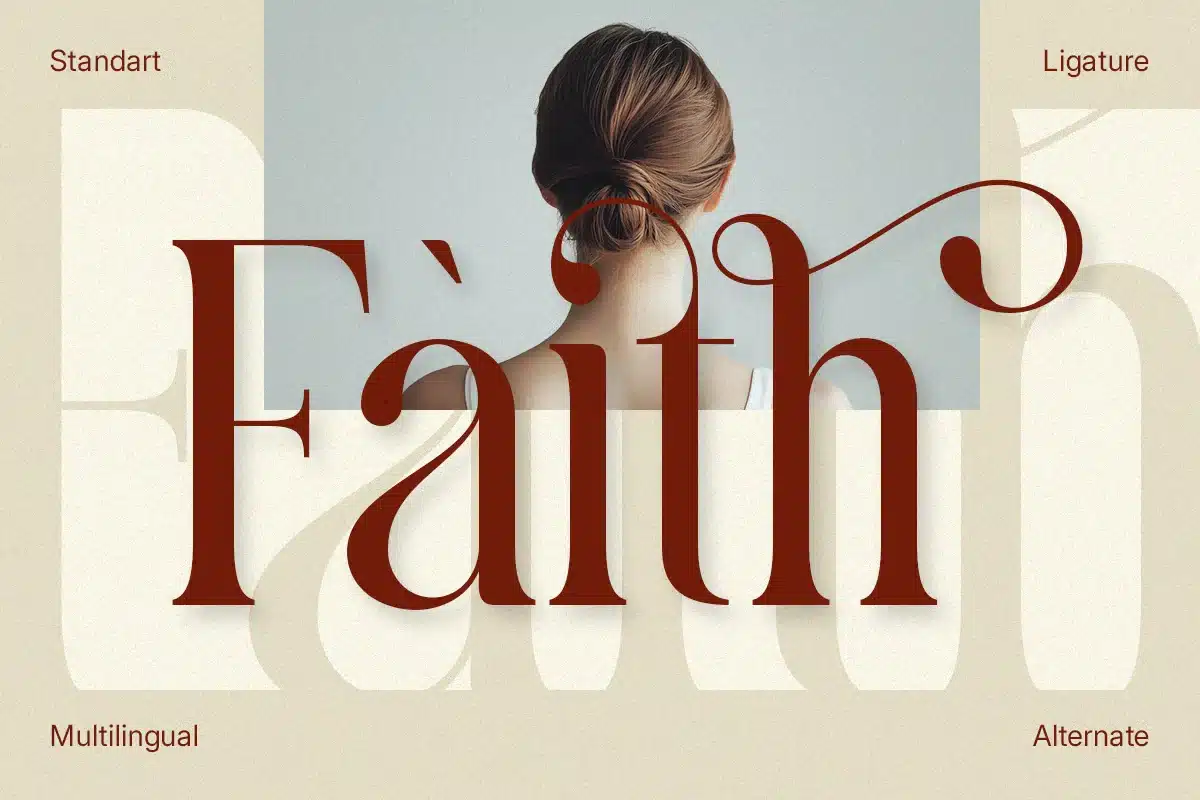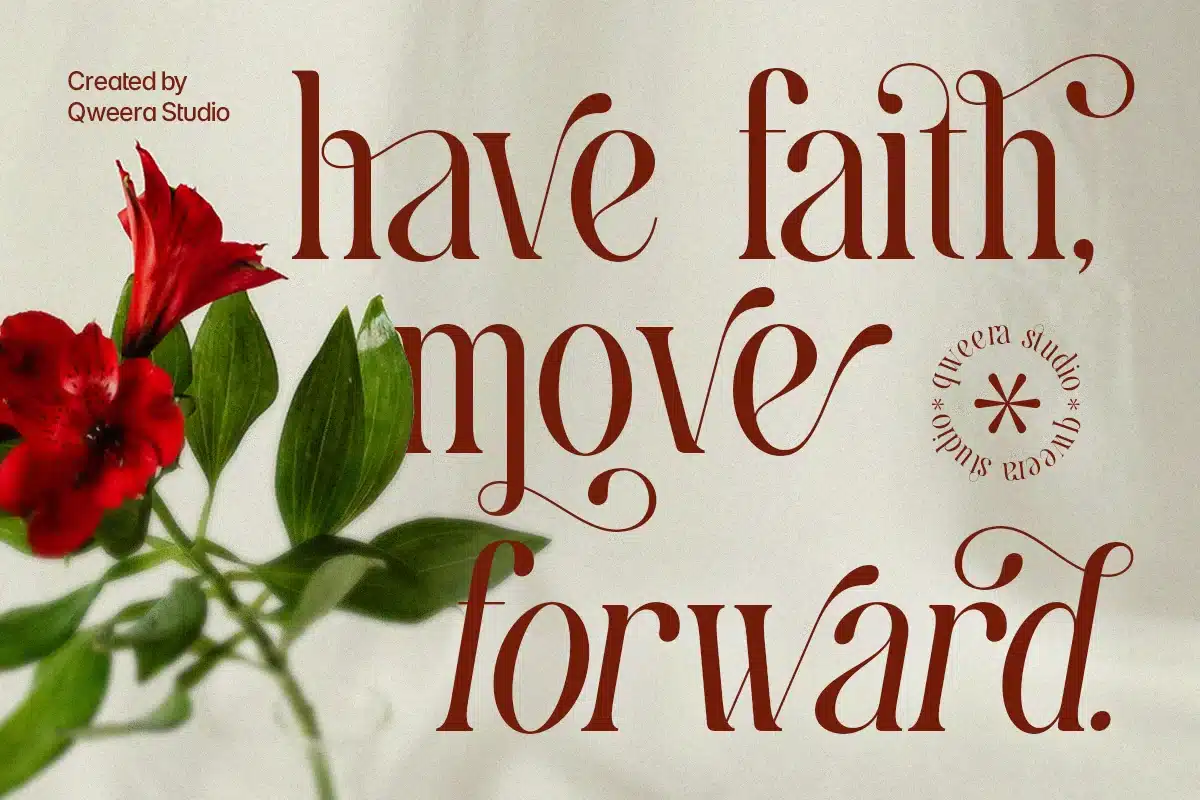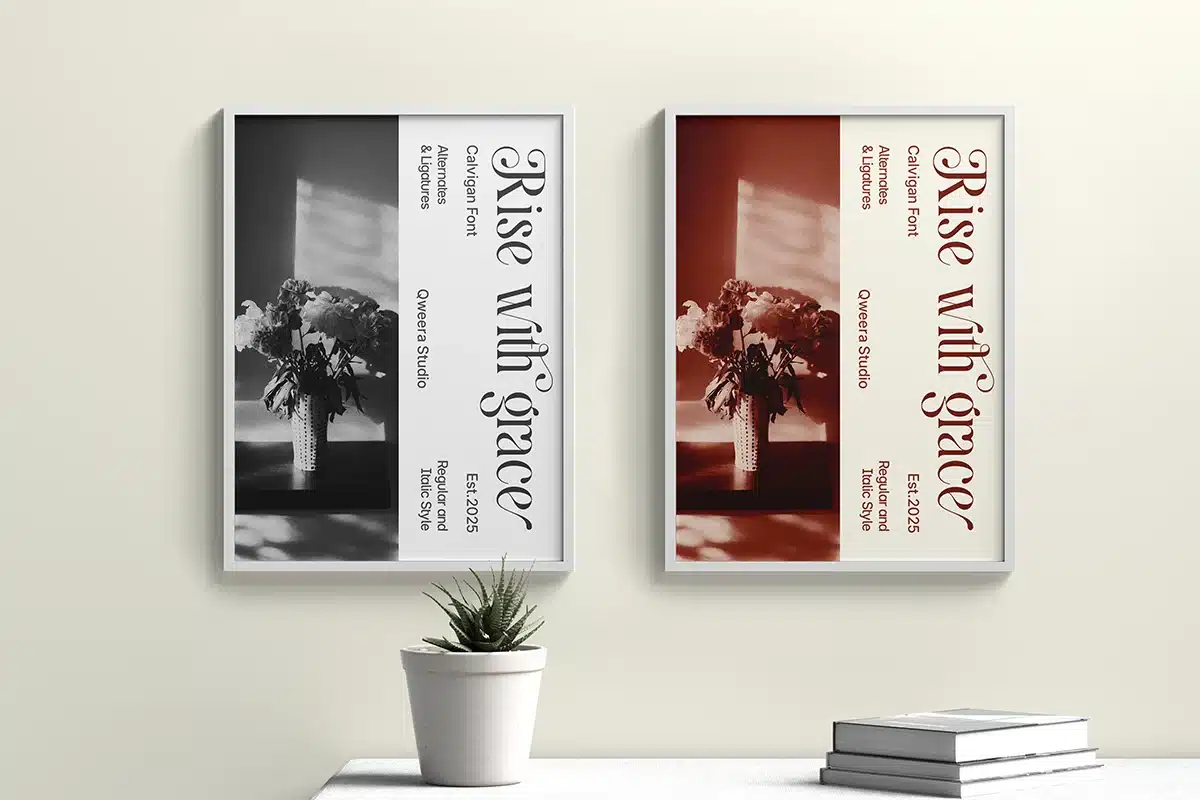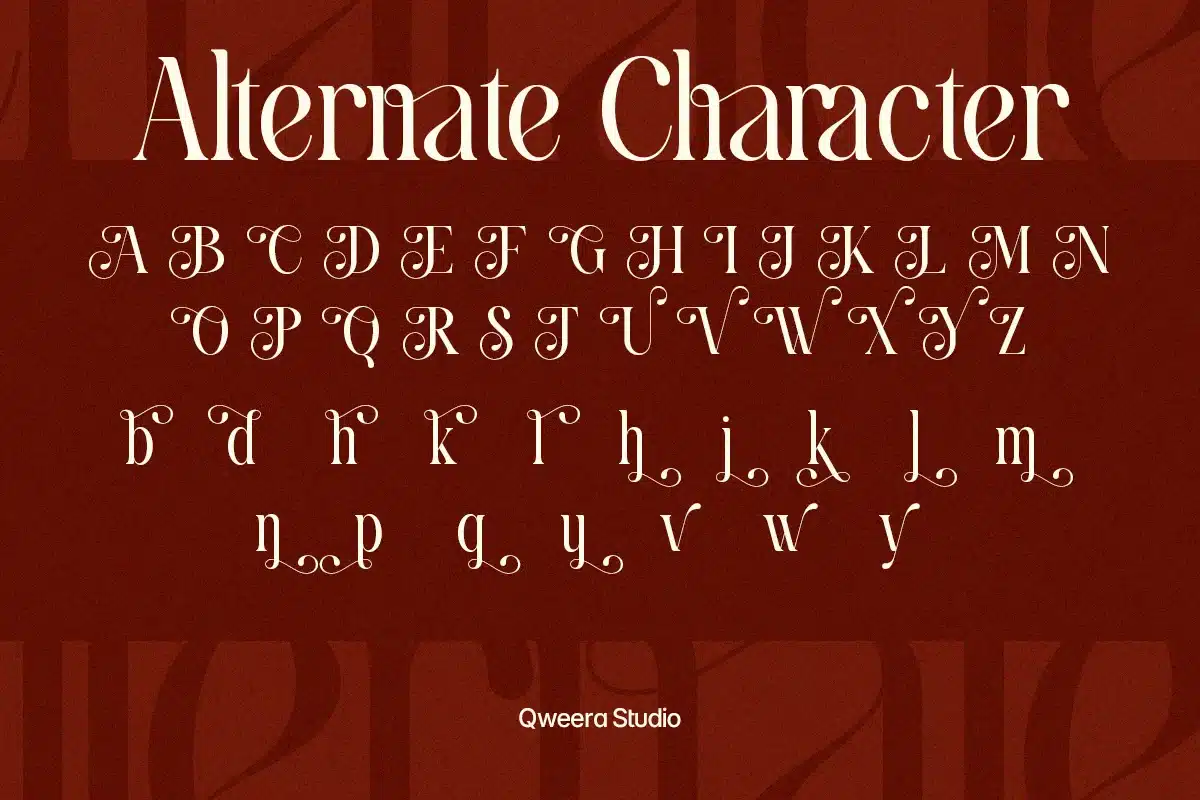
Modern Elegant Stylish Branding Serif – Calvigan Font
Calvigan is a refined modern serif typeface designed with graceful curves, luxurious proportions, and elegant details. Crafted to deliver a sophisticated premium look, it is ideal for branding and upscale creative projects.
Its romantic letterforms make it perfect for logos, wedding stationery, boutique packaging, invitations, and magazine layouts.
Calvigan helps designers create timeless visuals with feminine luxury appeal.
Features
- Uppercase & lowercase
- Alternates & ligatures
- Professional kerning
- Regular & Italic
Luxury branding, wedding invitations, boutique logos, beauty packaging, editorial layouts, fashion advertising